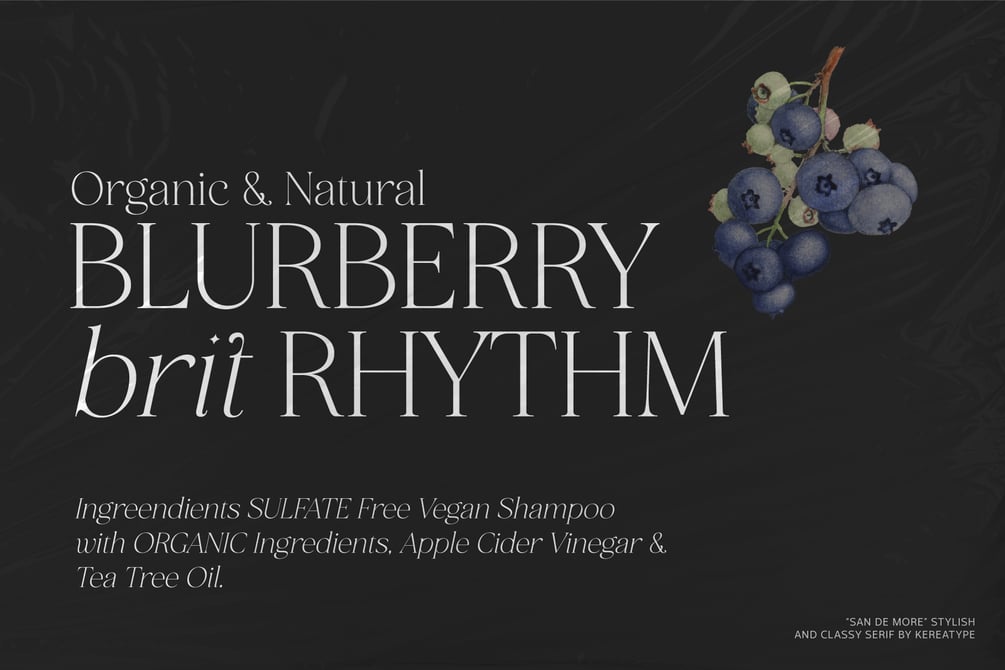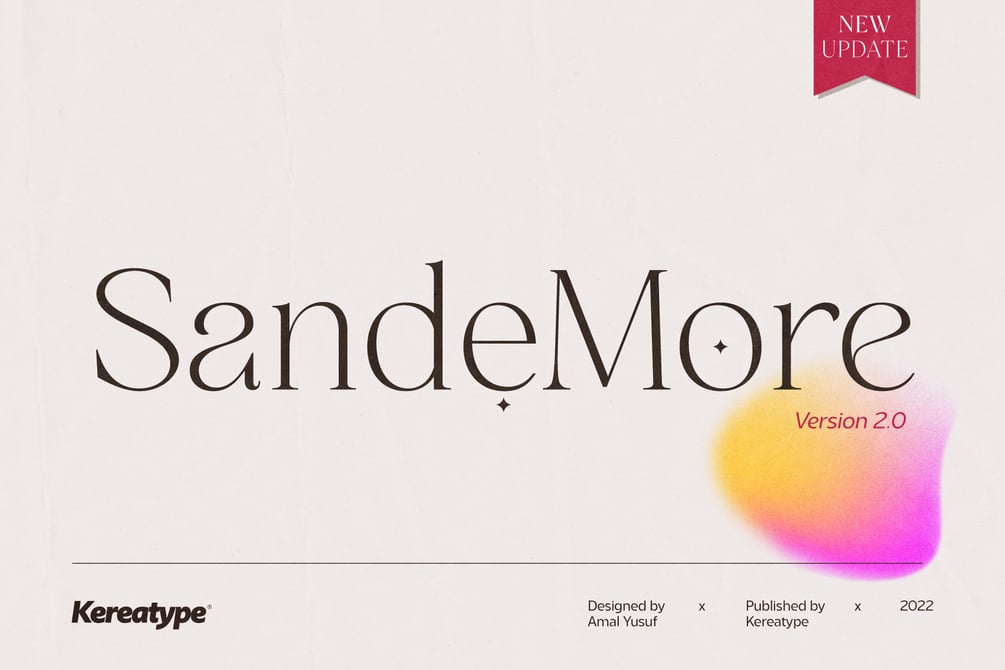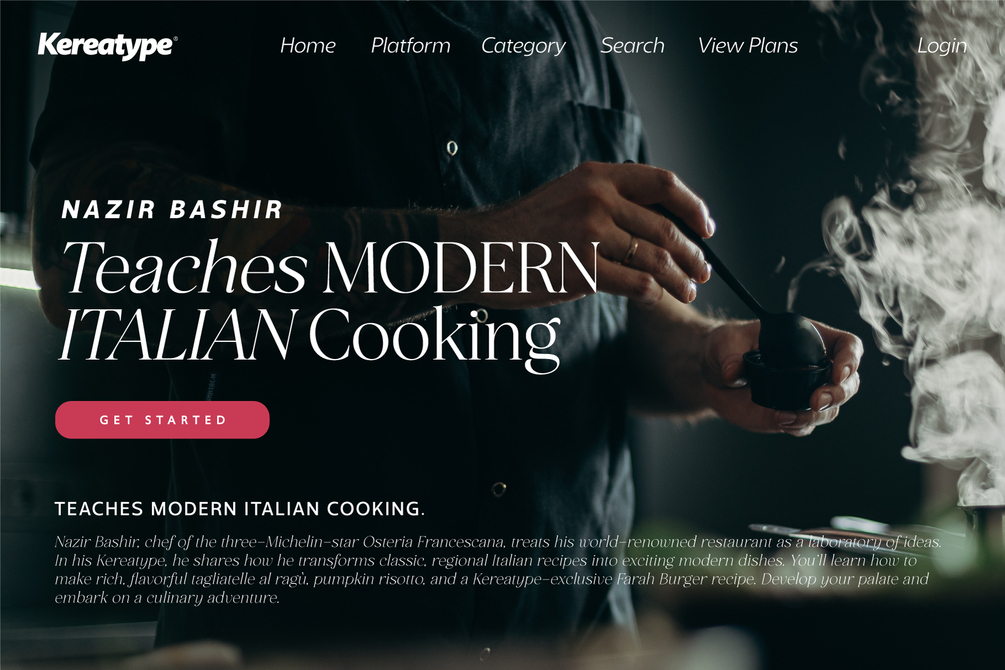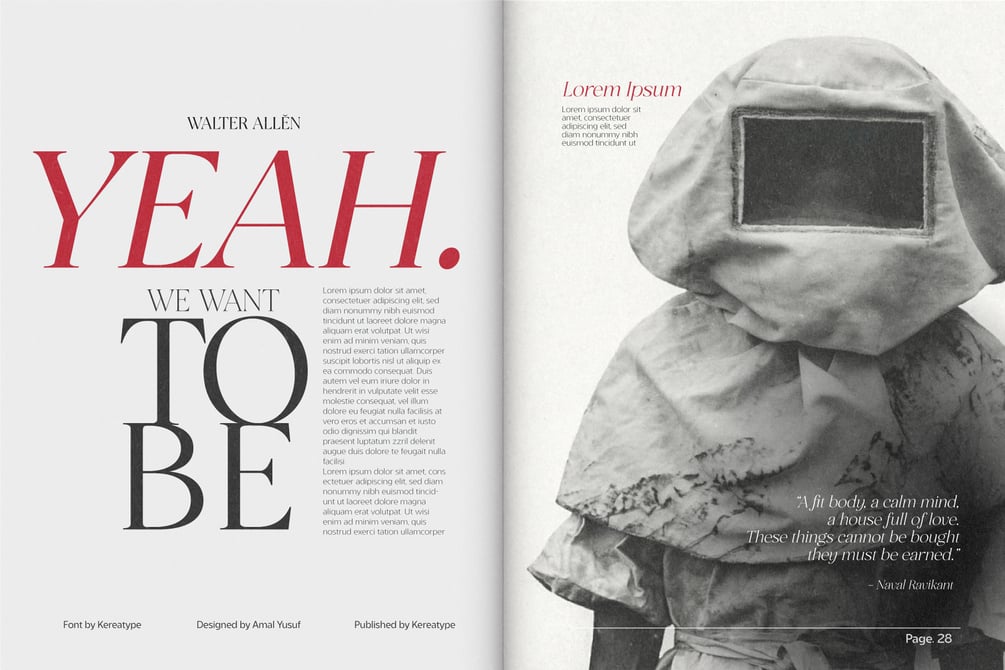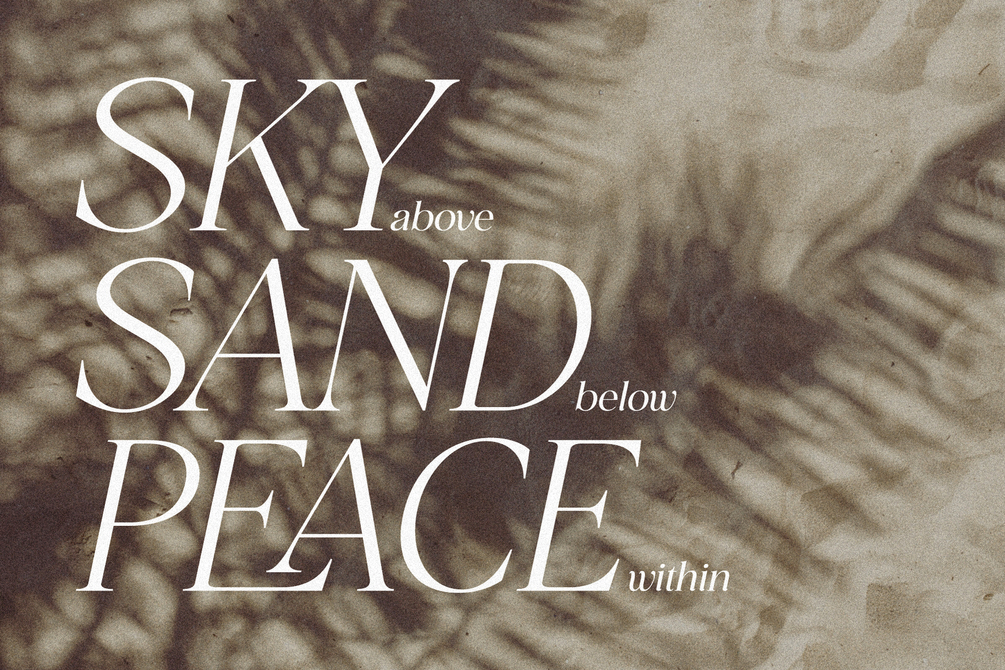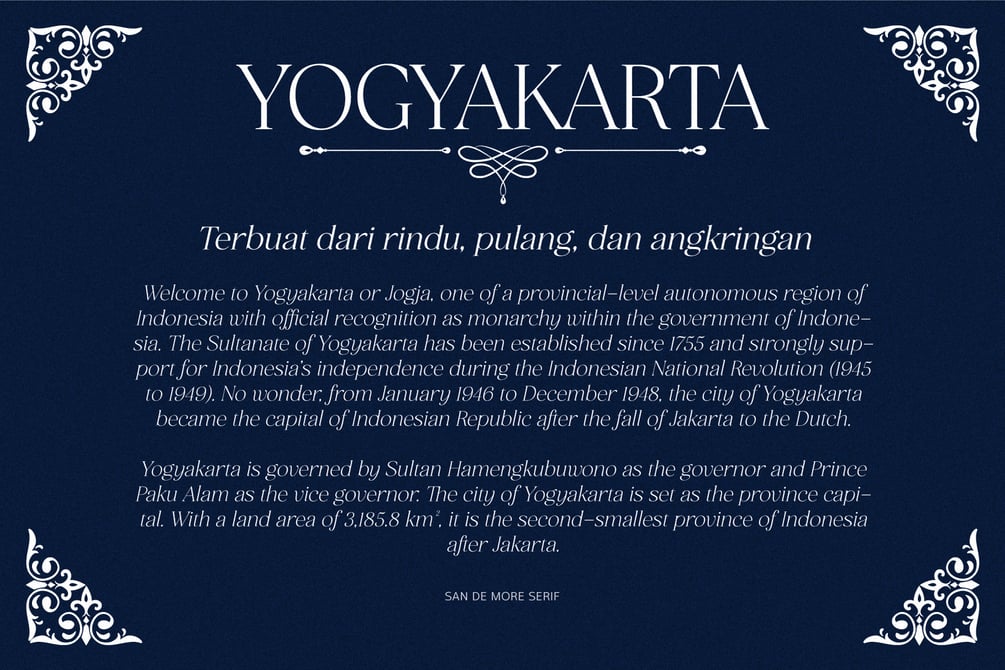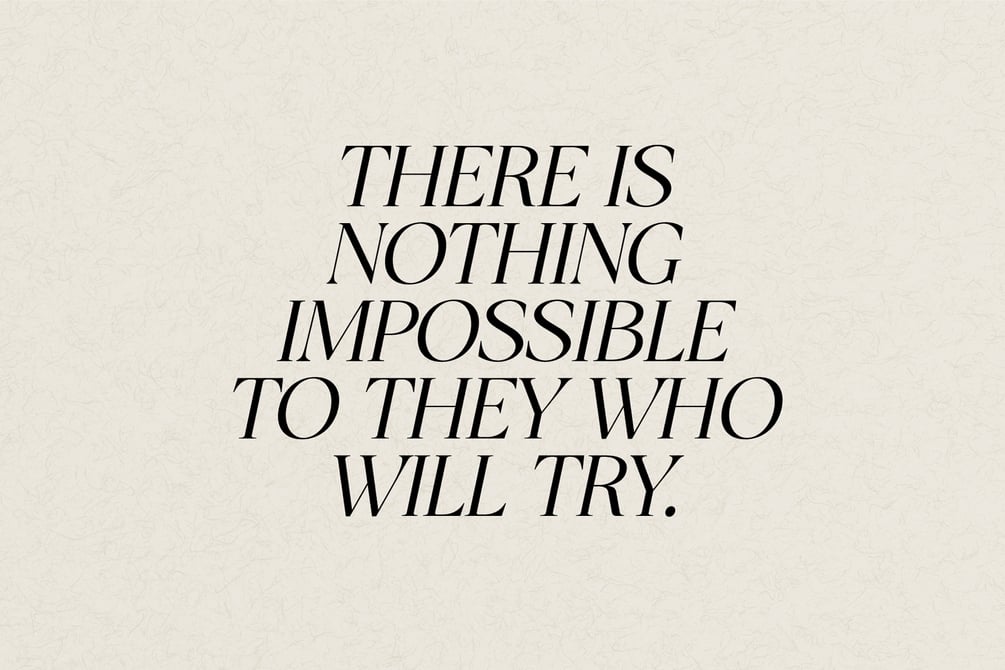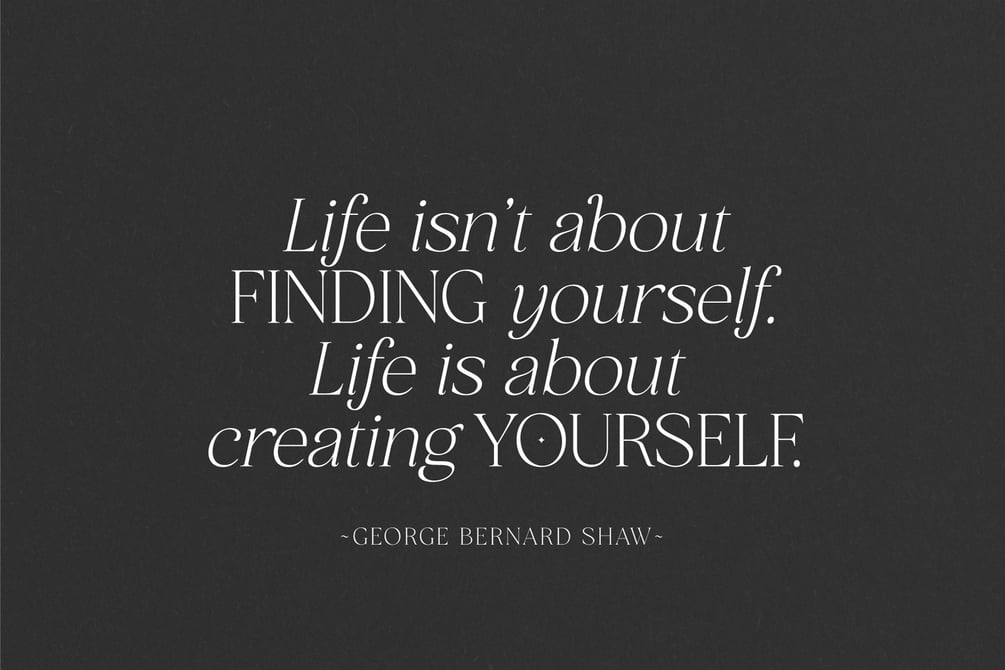
San de More - Elegant Serif Font
San de More is a Stylish Serif font, infused with the hype of summer themes that inspire us to create a product aiding you in choosing fonts for your creations. As seen in the preview above, it showcases how the fonts can seamlessly integrate into your design.
Created in 5 weights with italic styles, San de More offers versatility, ensuring you find the perfect fit for your creative designs. Mix and match without worrying about design clashes.
Features:
• Stylistic Alternates
• Standard & Discretionary Ligatures
• Multilingual characters
• PUA Encoded
10 Font Styles, 5 Weight from Regular to Extra Bold in 437 Glyphs.